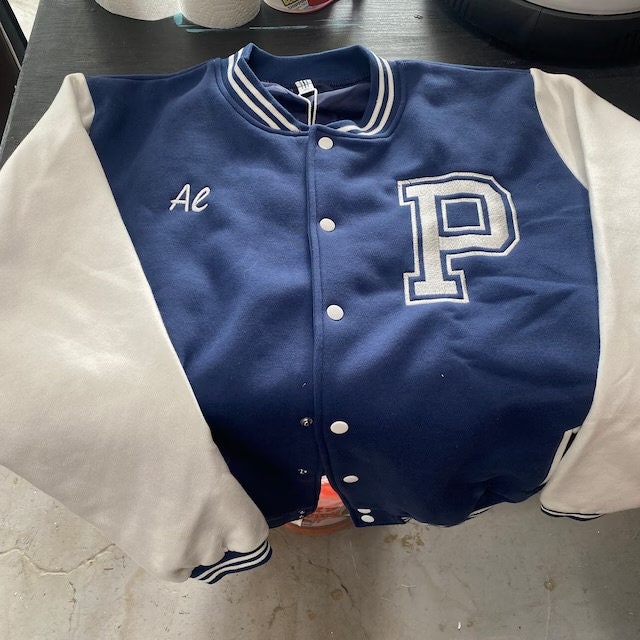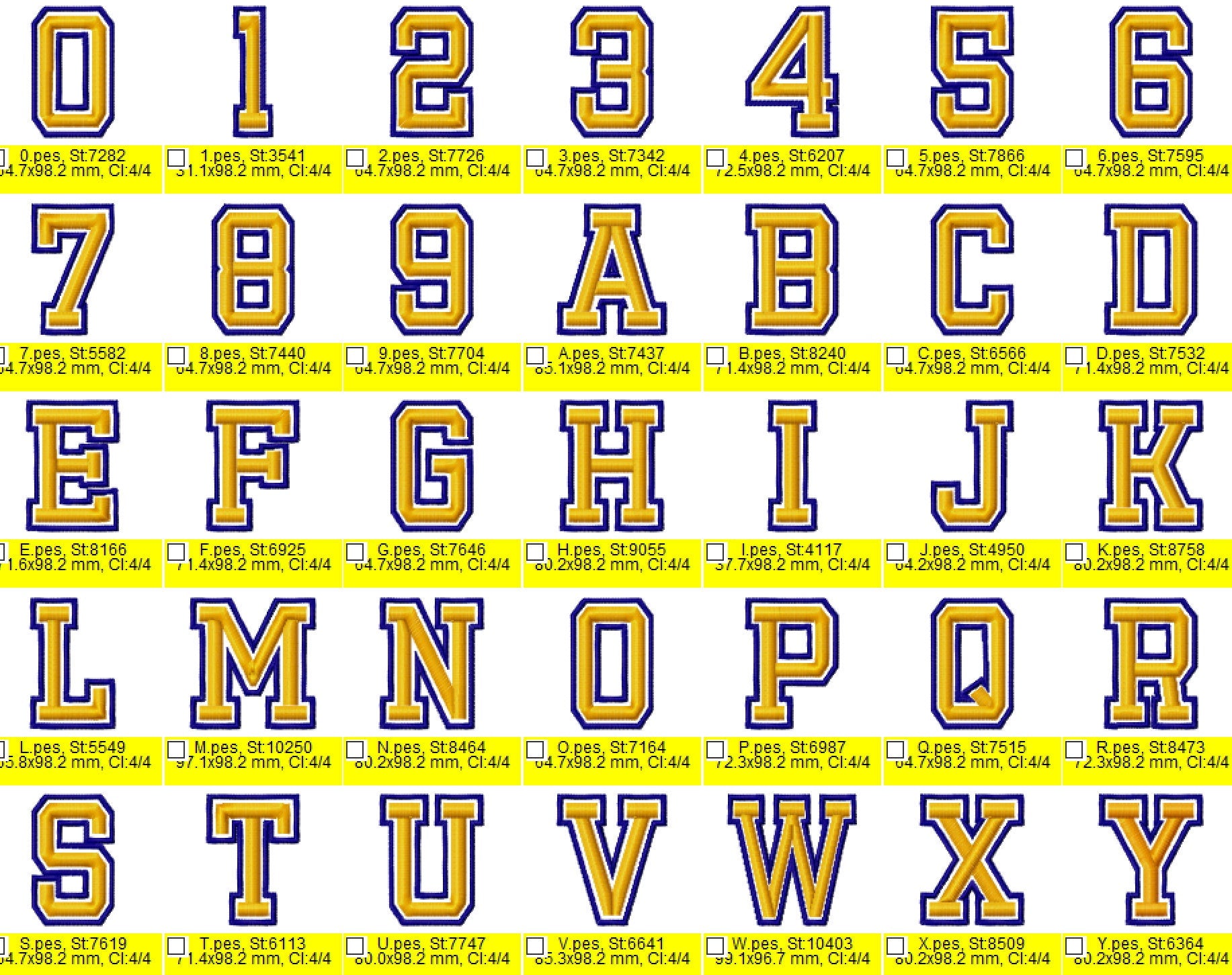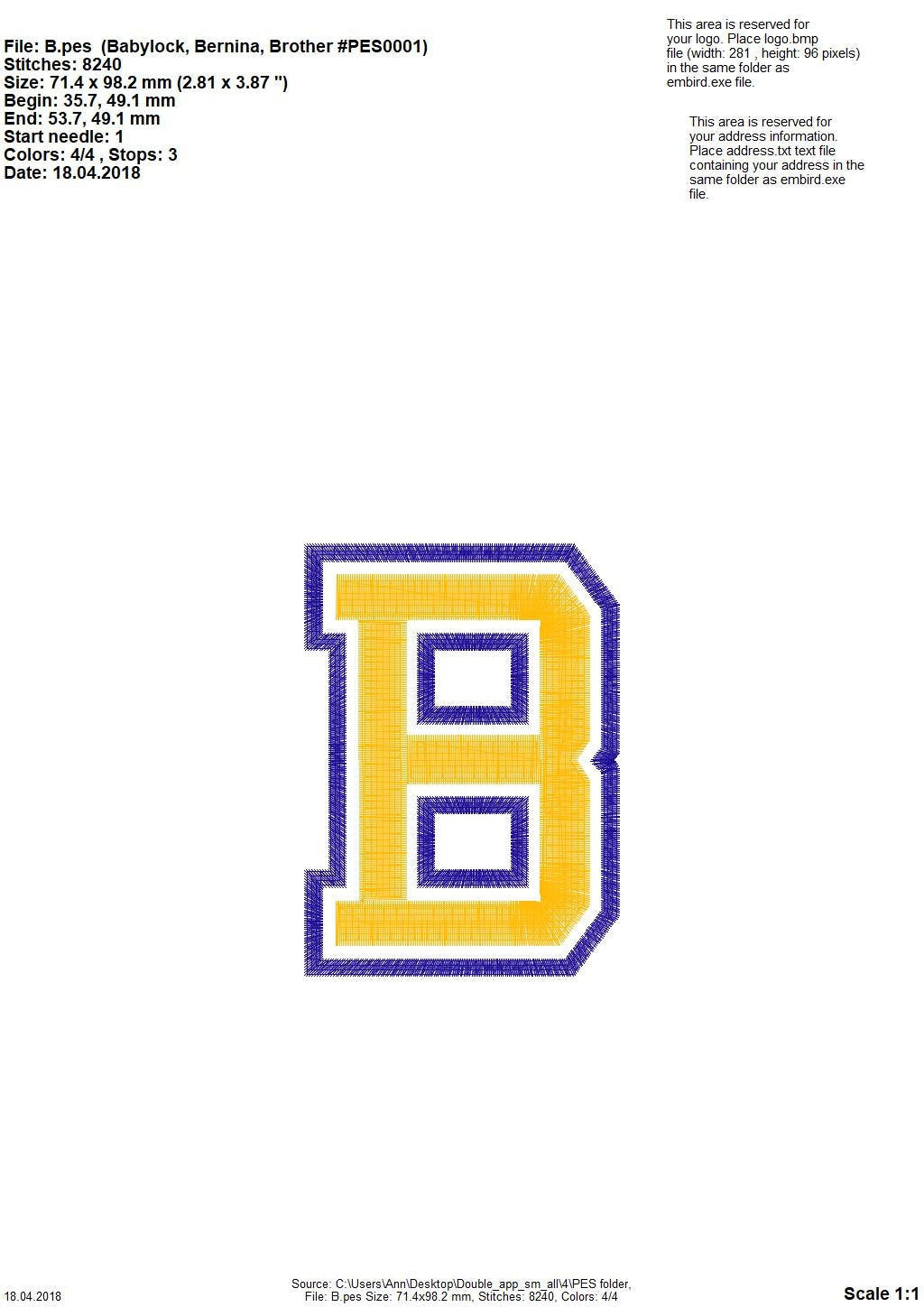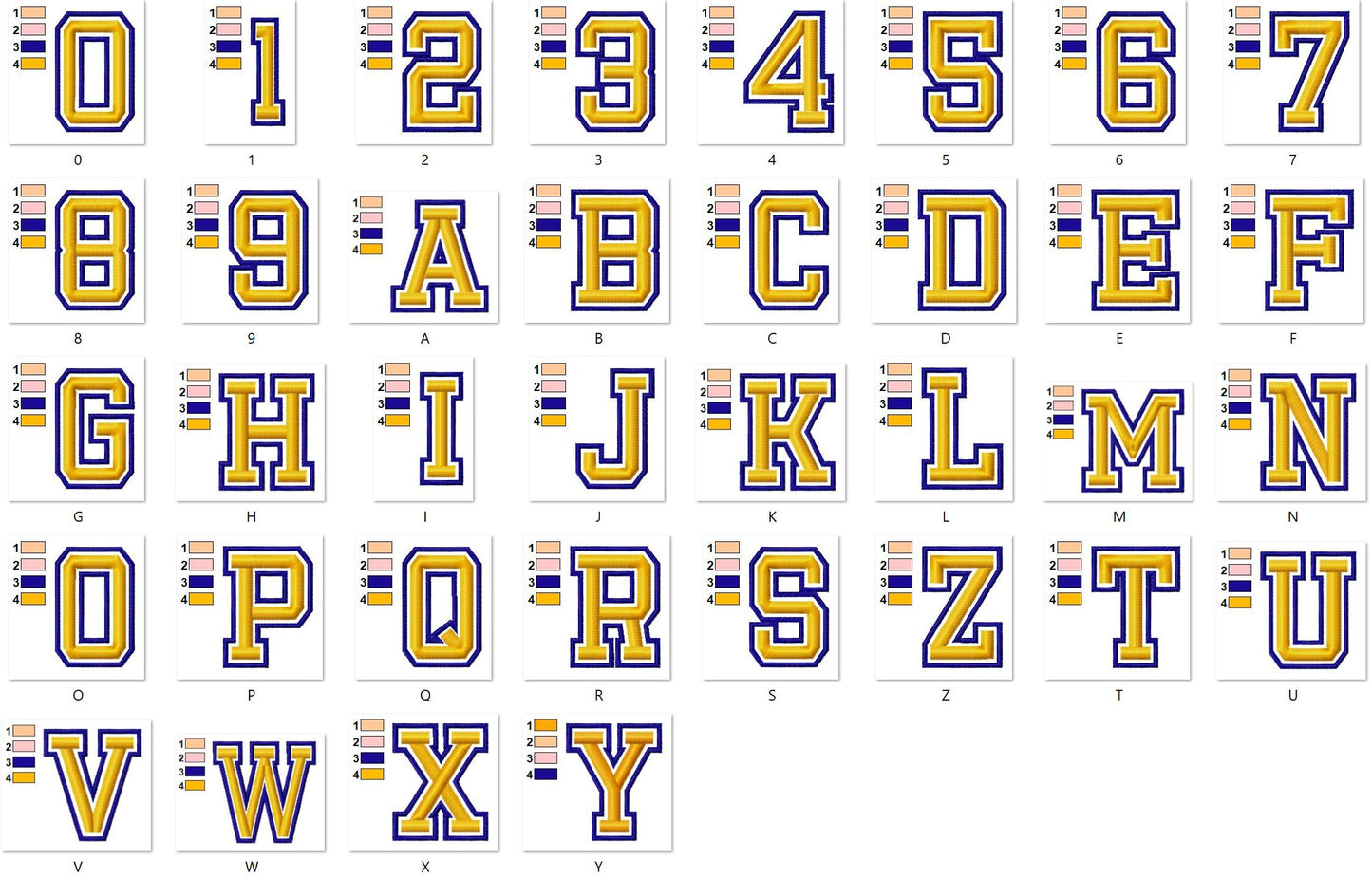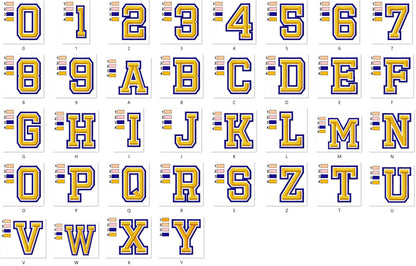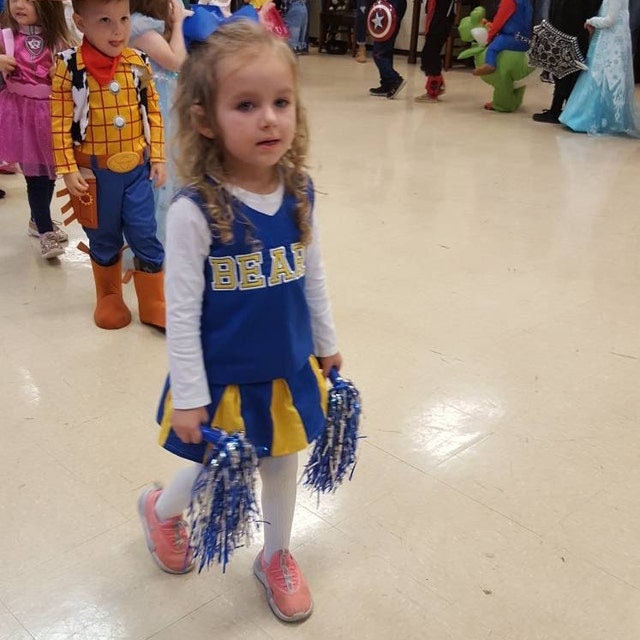
Or click to open the linkA two-color athletic font: applique below with a fill stitch letter on top. Made for team shirts, jerseys, hoodies and bags.
Uppercase letters A to Z and numbers 0 to 9. Seven sizes: 2, 3, 3.5, 4, 4.5, 5 and 6 inches.